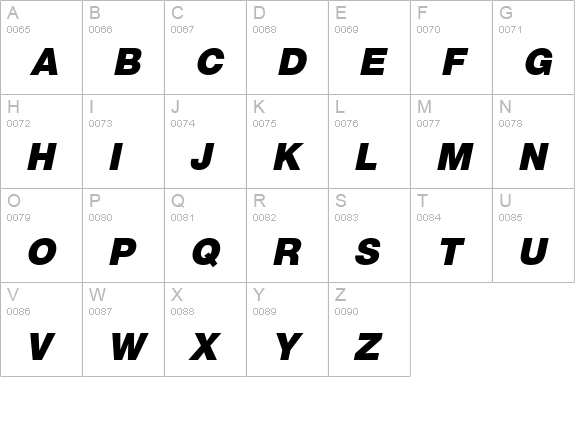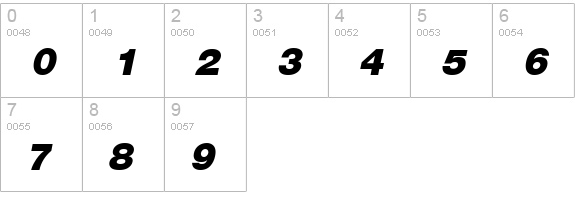
Sans Black ITALIC Font Details
Sans Black ITALIC is a maximum-weight, dramatic, italic variant in the Sans typeface family \xE2\x80\x94 well suited to maximum-impact headlines, posters, and packaging.
Introducing Sans Black ITALIC font - a sleek, modern typeface that exudes elegance and sophistication. With its clean lines and bold letterforms, this font is the perfect choice for adding a touch of class to any design project. Designed to make a statement, Sans Black ITALIC commands attention with its unique and stylish italicized form. Its strong presence on the page is sure to captivate readers and leave a lasting impression. But what truly sets Sans Black ITALIC font apart is that it is freely available to download at FontsMarket.com. Yes, you read that right - this incredible typeface can be yours at no cost! Whether you're a professional designer, a student, or simply a lover of beautiful typography, this font is a must-have addition to your collection. Imagine the possibilities - from eye-catching headlines to sleek logos and branding materials, Sans Black ITALIC will elevate your designs to new heights. Its versatility knows no bounds, making it suitable for a wide range of projects, including advertising, packaging, editorial layouts, and more. Not only does Sans Black ITALIC font offer stunning aesthetics, but it also ensures legibility and readability. Its carefully crafted letterforms guarantee that your message will be effortlessly communicated to your audience, while still retaining that touch of sophistication that makes this font so special. So why wait? Don't miss out on the opportunity to enhance your designs with Sans Black ITALIC font. Download it for free at FontsMarket.com and discover the endless possibilities that await you. Get ready to make a bold statement and leave a lasting impression with this remarkable typeface.